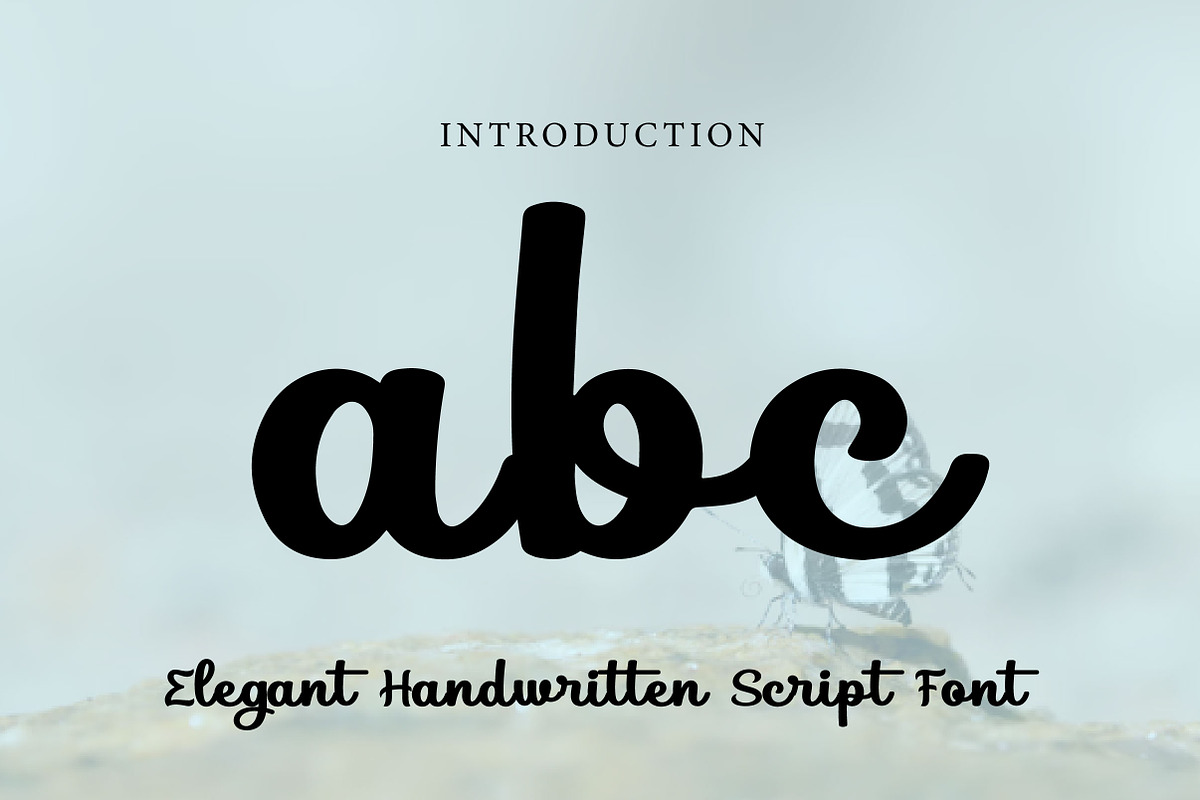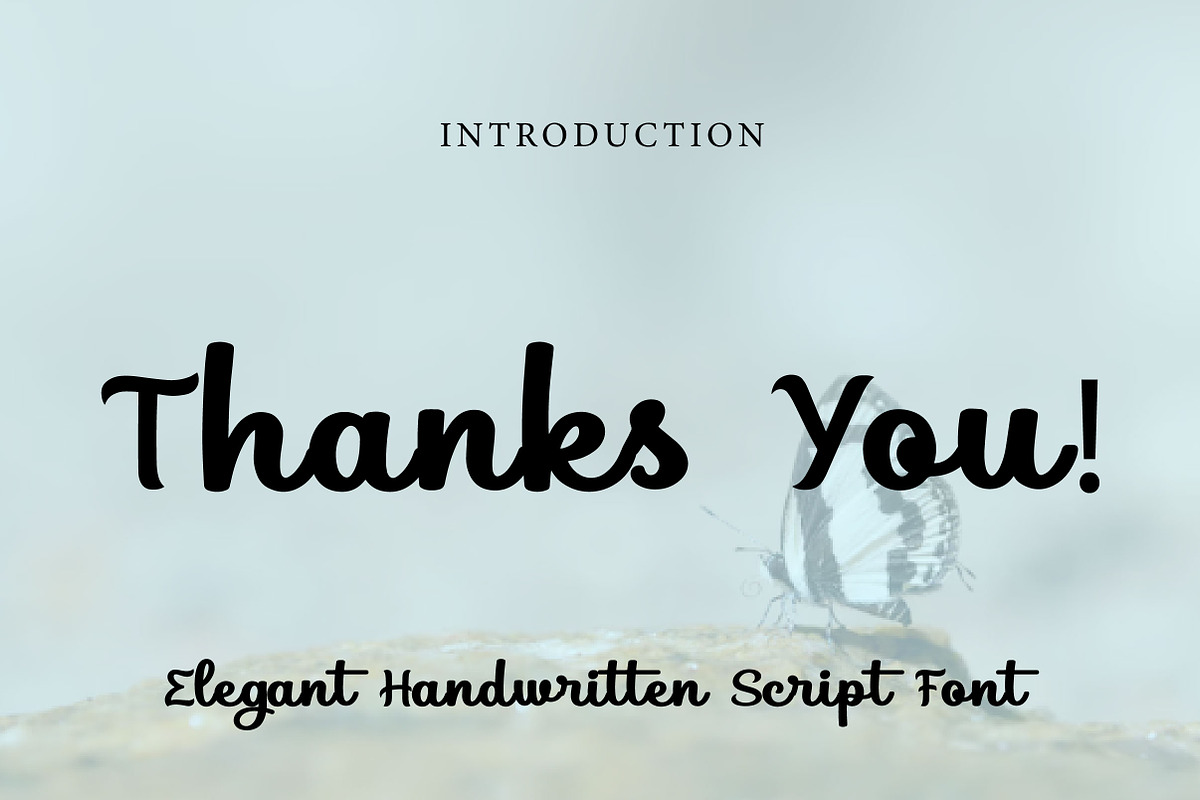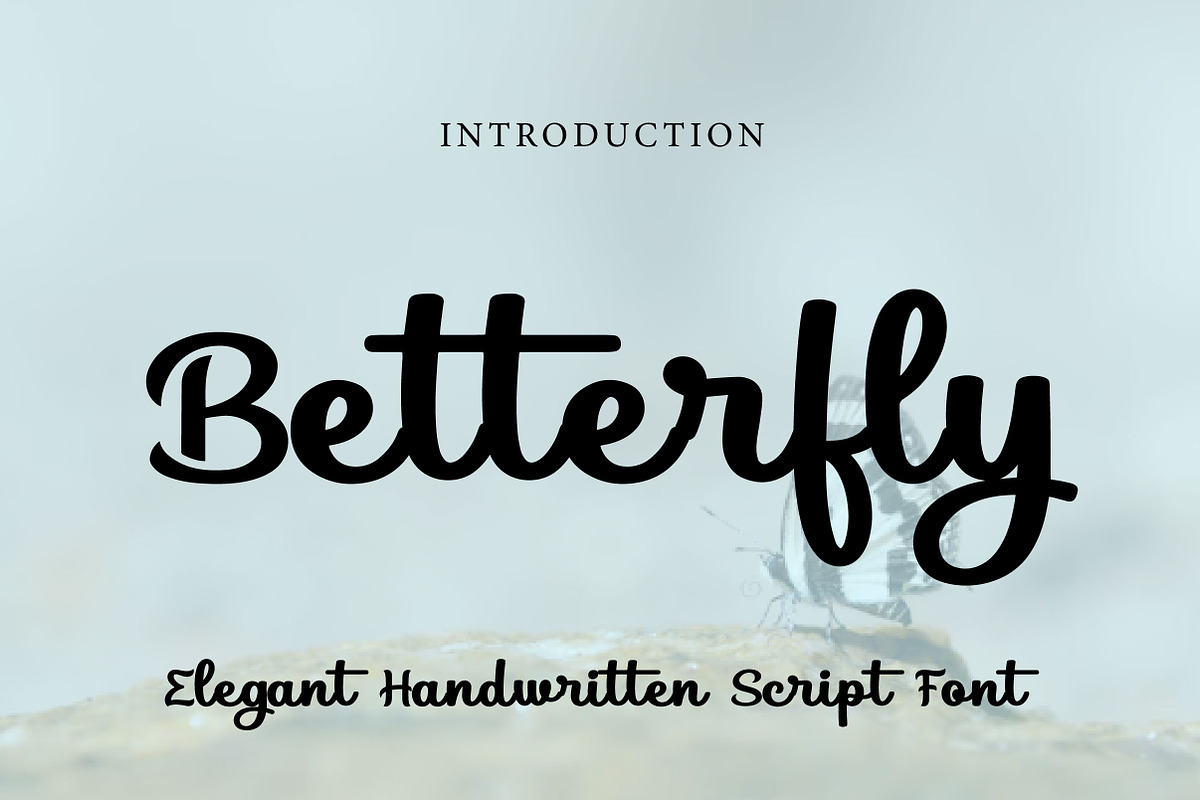
Betterfly
Betterfly – Elegant Handwritten Script Font
Betterfly is a smooth, stylish, and elegant handwritten script font, perfect for branding, logos, wedding designs, packaging, and feminine creative projects.
Betterfly is a beautiful handwritten script font that blends elegance, softness, and personality into one charming typeface. With its flowing strokes, smooth curves, and graceful letterforms, this font creates a stylish and natural handwritten feel.
Designed to make your typography look refined and expressive, Betterfly is perfect for projects that need a personal yet polished touch. It works wonderfully for branding, logos, wedding invitations, product packaging, social media graphics, beauty designs, and quote layouts.
Its modern script style gives your text a warm and sophisticated presence, making it ideal for both digital and print applications. Whether you are creating a romantic brand identity or a feminine packaging design, Betterfly helps your work stand out with elegance and charm.
This font is a lovely choice for designers who want a handwritten typeface that feels graceful, trendy, and memorable.